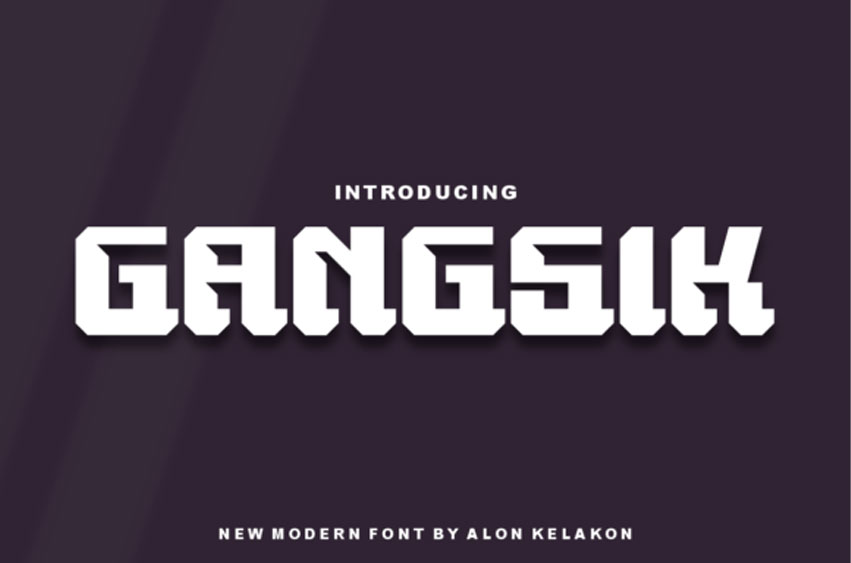
Gangsik Font
Gangsik Font is a unique and bold display font perfect for labels, branding, logos, clothing, movie titles, posters, music album covers, and many more.